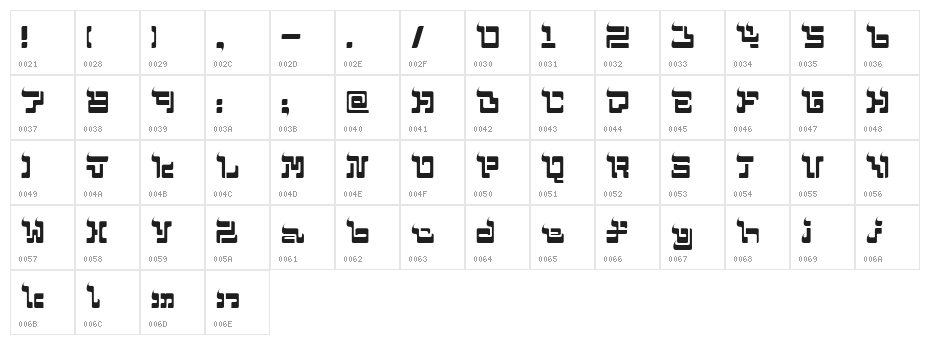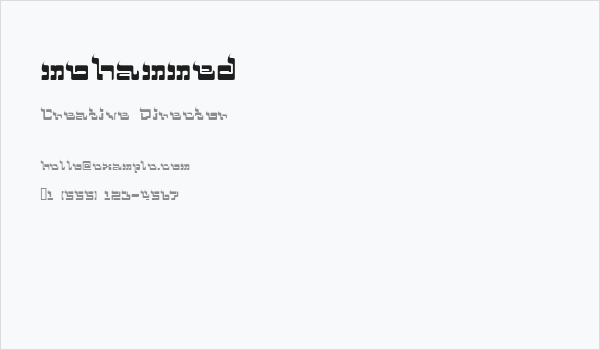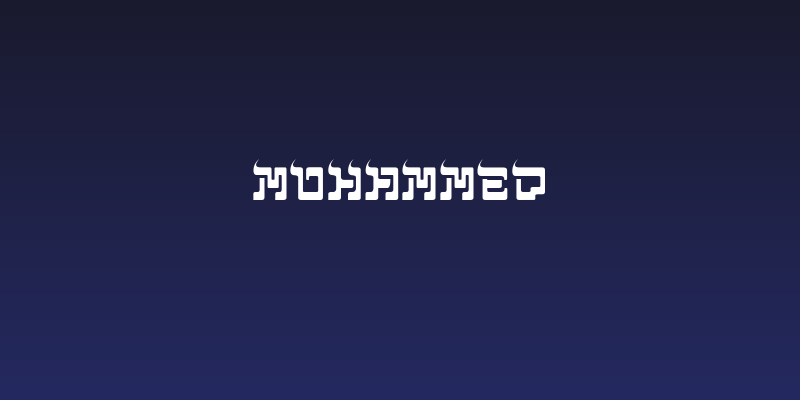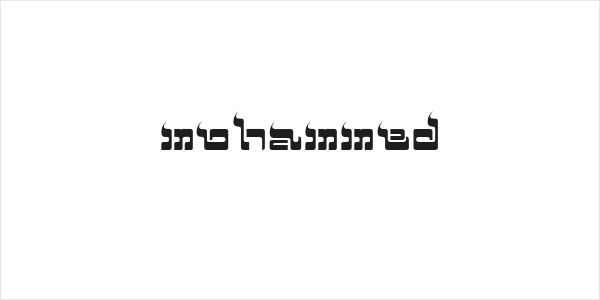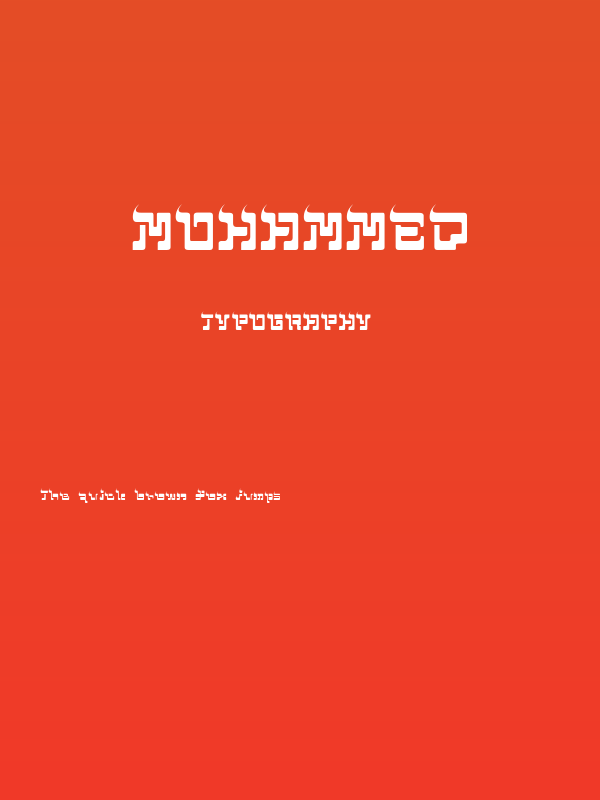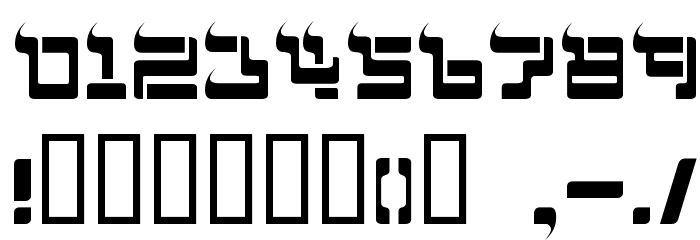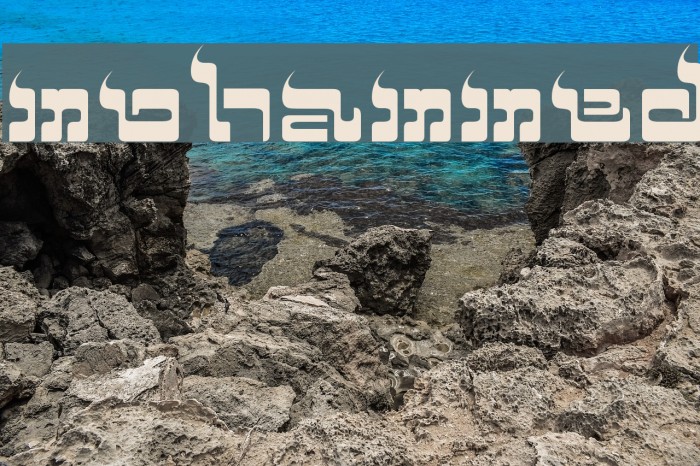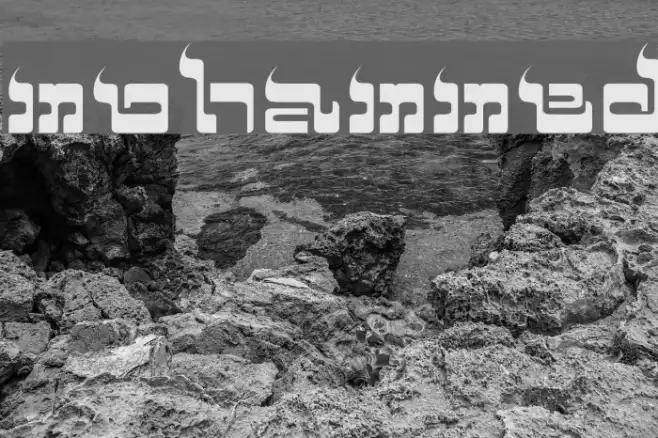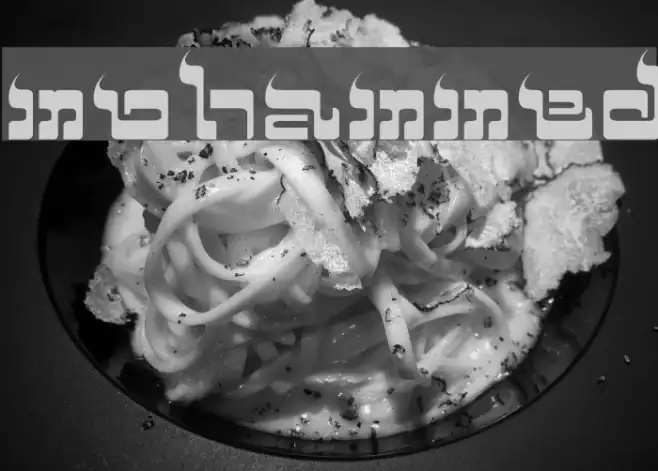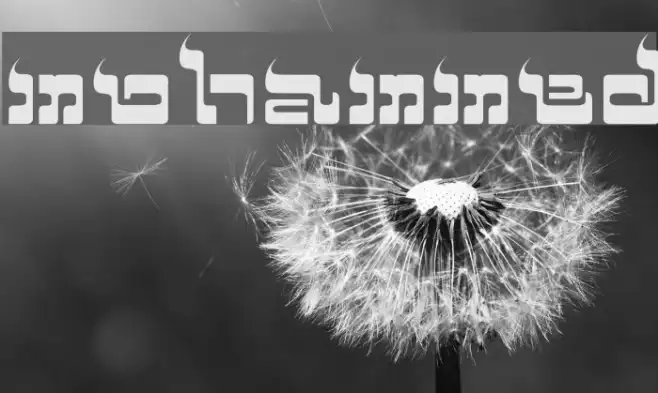
mohammed Font
mohammed Description
This font features a bold, futuristic design with a unique geometric structure. Each character is crafted with sharp angles and distinct curves, creating a striking visual effect. The uppercase and lowercase letters maintain a consistent style, with a blocky appearance that emphasizes their modern aesthetic. Numbers and special characters follow the same design principles, ensuring uniformity across all elements. The font's boldness and distinctive style make it ideal for projects that require a strong visual impact.
| Overall Style | Futuristic |
| Proposed Projects | Ideal for sci-fi themed designs, video game graphics, posters, and branding that requires a modern, edgy look. |